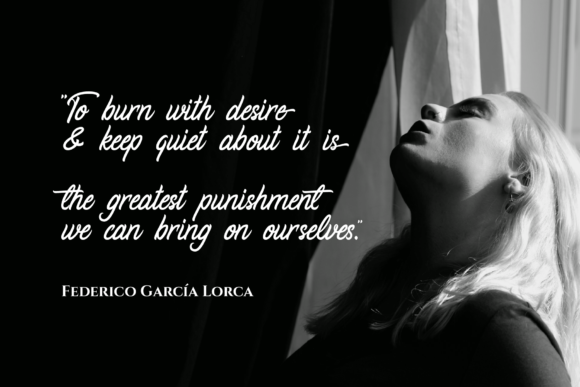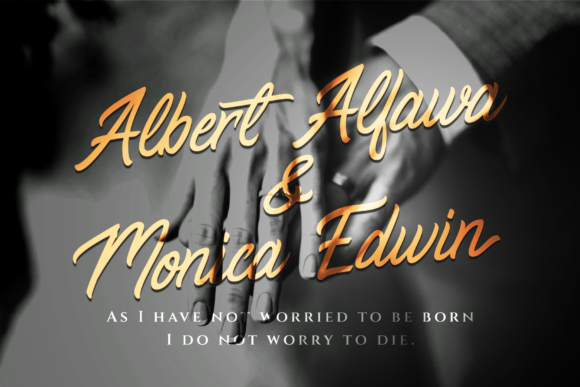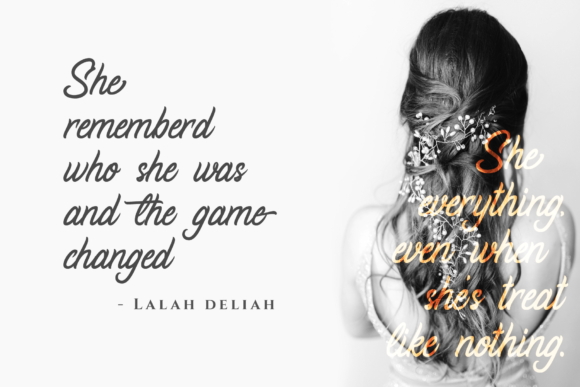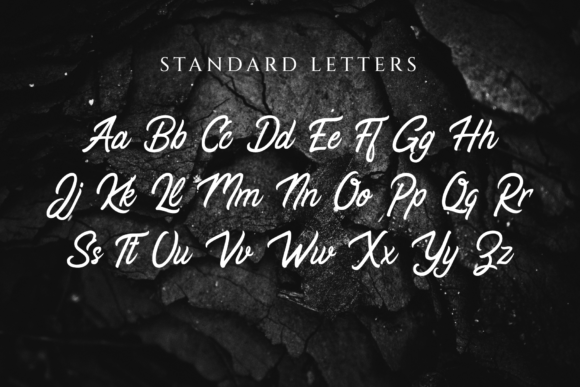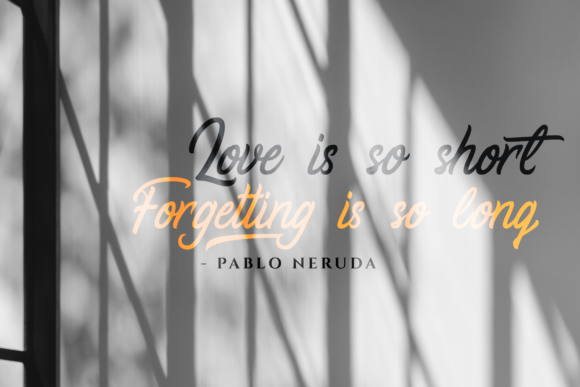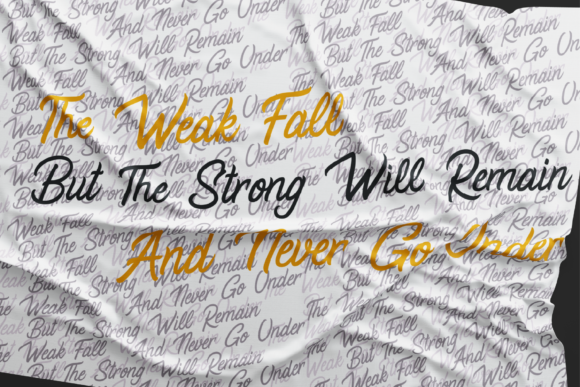
Introduction to Restaconme Font
Have you ever found yourself stuck in a creative rut, searching for that one elusive font that will elevate your design project to the next level? I know I have. It’s a feeling of frustration, mixed with a hint of excitement, as you scroll through font libraries, hoping to stumble upon the perfect match. And then, it happens – you come across a font that makes your heart skip a beat, and everything falls into place.
For designers, finding the right font can be a game-changer. It’s a crucial element that can make or break the overall aesthetic of a project. And that’s exactly why I’m excited to introduce you to the Restaconme Font – a gorgeous and bold handwritten font that’s sure to add a stylish touch to your headlines and logotype projects.
This high-quality font is not only a design resource, but also a free download that’s waiting to be explored. With its transparent background, you can easily customize it to fit your creative project’s needs. Whether you’re working on a personal or professional project, the Restaconme Font is a valuable addition to your design arsenal.
Key Features of Restaconme Font
- High-quality font with a transparent background, perfect for creative projects requiring a unique design resource.
- Designed with a focus on readability, making it ideal for use in a variety of creative contexts, from print materials to digital designs.
- Resolution-independent, allowing for seamless scaling and use across different resolutions and devices.
- Includes multiple font styles and weights, providing designers with a range of options to suit their creative vision.
Honest Review: Restaconme Font
I recently came across the Restaconme Font, and I must say it’s a great addition to any designer’s toolkit. As a design enthusiast, I appreciate high-quality fonts that can elevate my creative projects.
- ✨ Unique character set: The Restaconme Font boasts an extensive character set, making it perfect for designing logos, icons, and other graphics that require special characters.
- ✨ Transparent background: The font’s transparent background allows for seamless integration with any design element, giving me more flexibility when working on a project.
While the Restaconme Font is a great design resource, I did encounter a few limitations. The font may not be suitable for large-scale typography, as the letters can appear somewhat pixelated when enlarged.
Overall, I’m impressed with the Restaconme Font. Its unique character set, transparent background, and free download make it an excellent addition to any designer’s arsenal. With a few tweaks to address the limitations, this font could be a top choice for designers working on creative projects.
I’d recommend the Restaconme Font to designers looking for a high-quality, versatile font that can add a touch of elegance to their designs.
Getting the Most Out of Restaconme Font
To maximize the potential of the Restaconme Font, experiment with different font sizes, colors, and styles. Use it in combination with other design elements to create visually appealing and unique designs.